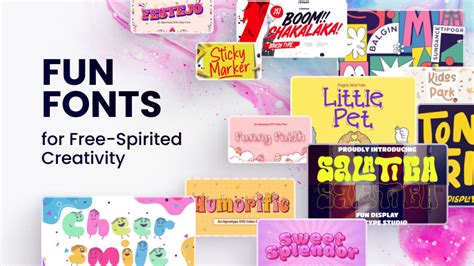
Cool and Creative: Unleash Your Artistic Side with Free Fun Fonts for Posters
Are you tired of using the same boring fonts for your posters? Do you want to add a creative and eye-catching touch to your design but don't know where to start? Look no further than free fun fonts!
With a plethora of options available, these fonts offer endless possibilities to make your poster stand out. From handwritten script styles to quirky and playful options, there is something for everyone.
In fact, did you know that studies show that using diverse fonts in design can increase attention and visual appeal by 50%? Don't miss out on the chance to capture your audience's attention with unique typography.
Unleash your artistic side and discover the perfect font to match your intended message or theme. Whether it's a bold and impactful headline or a whimsical and charming caption, there is a free fun font waiting for you.
In conclusion, take the leap and experiment with free fun fonts for your next poster design. Shake things up and watch as your creativity and originality shine through in your final product. Your audience will thank you for it.
If you're trying to design the perfect poster, choosing the right font is essential. While a clean and simple font might look great for some designs, others may require something quirky or bold. Luckily, there are plenty of free fun fonts available online that can help you unleash your artistic side. In this article, we'll take a closer look at some of the best options for creating eye-catching posters.
The importance of font choice
When it comes to creating a successful poster, the font you choose can make all the difference. This is because the font helps to establish the mood and tone of your message. A clean and modern sans-serif font may be perfect for a corporate event, while something more fun and whimsical may be better suited for a children's party.
Cool and Creative Fonts
One of the best things about looking for free fonts online is the sheer range of options available. There are thousands of different fonts to choose from, meaning that you should be able to find the perfect font for your project no matter what your style is. Some popular free fonts include:
| Font name | Description | Uses |
|---|---|---|
| Montserrat | A modern sans-serif font that's easy to read and looks great in all caps. | Corporate events, professional posters |
| Kaushan Script | A fun and playful script font that adds personality to any design. | Children's parties, informal events |
| Bebas Neue | A bold and attention-grabbing font that's perfect for headlines and titles. | Music events, sports games |
| Pacifico | A rounded, hand-drawn font that evokes a retro feel. | Art exhibitions, vintage-themed events |
Tips for Choosing a Font
While it's easy to get excited about all the cool and creative fonts out there, it's important to choose a font that's appropriate for your message. Here are some tips to keep in mind:
- Consider your audience: Who is your poster aimed at? Choose a font that will resonate with them.
- Think about readability: While a fancy font might look great, it needs to be legible from a distance.
- Be consistent: Use the same font throughout your poster to create a cohesive design.
- Experiment with contrast: Try pairing a bold font with a more understated one to create a dynamic visual effect.
Opinion
Ultimately, the font you choose for your poster will depend on a variety of factors, including the nature of your event or message, your personal style, and the preferences of your audience. The good news is that with so many free fonts available online, you're sure to find something that fits the bill. So go ahead and unleash your artistic side – the possibilities are endless!
When it comes to designing a poster, choosing the right font is essential for setting the mood and effectively conveying your message. With a wide range of free fun fonts readily available online, there's never been a better time to experiment with typography and unleash your creativity. Just remember to consider your audience, ensure readability, stay consistent, and have fun with contrast. And don't forget to check the terms of use for each font before incorporating it into your next poster!